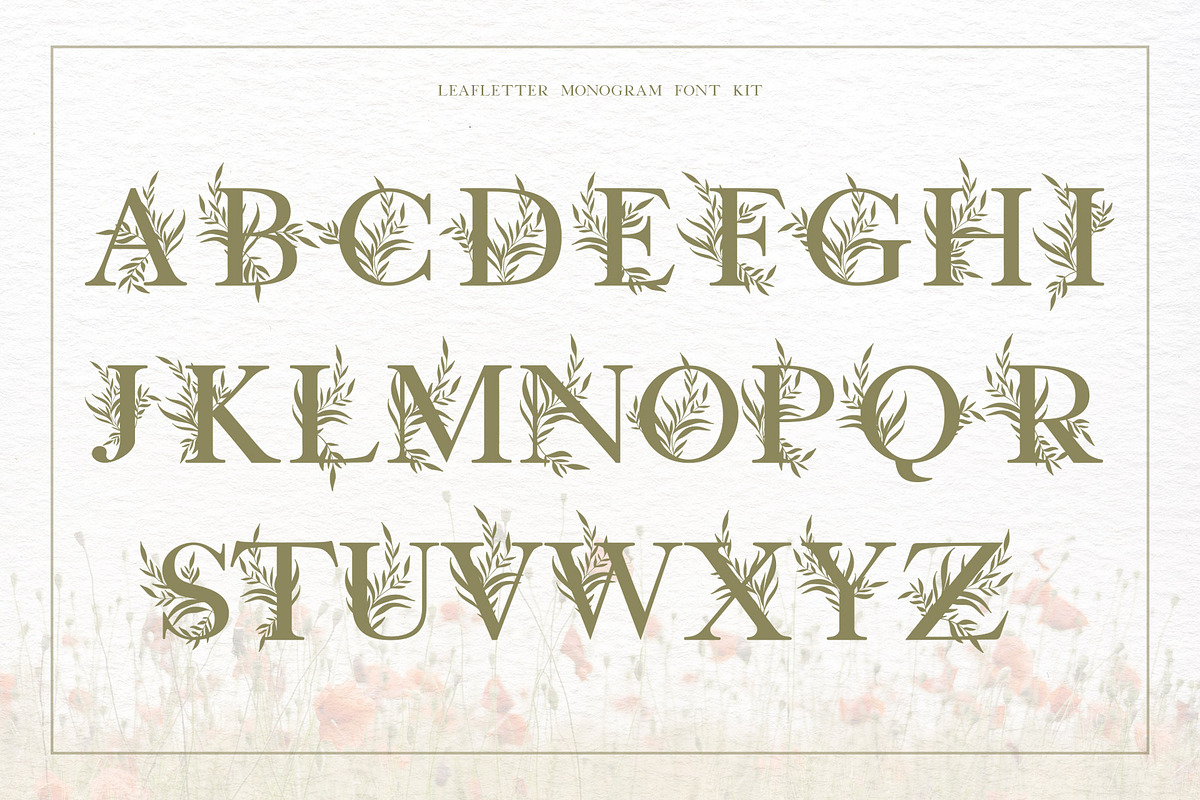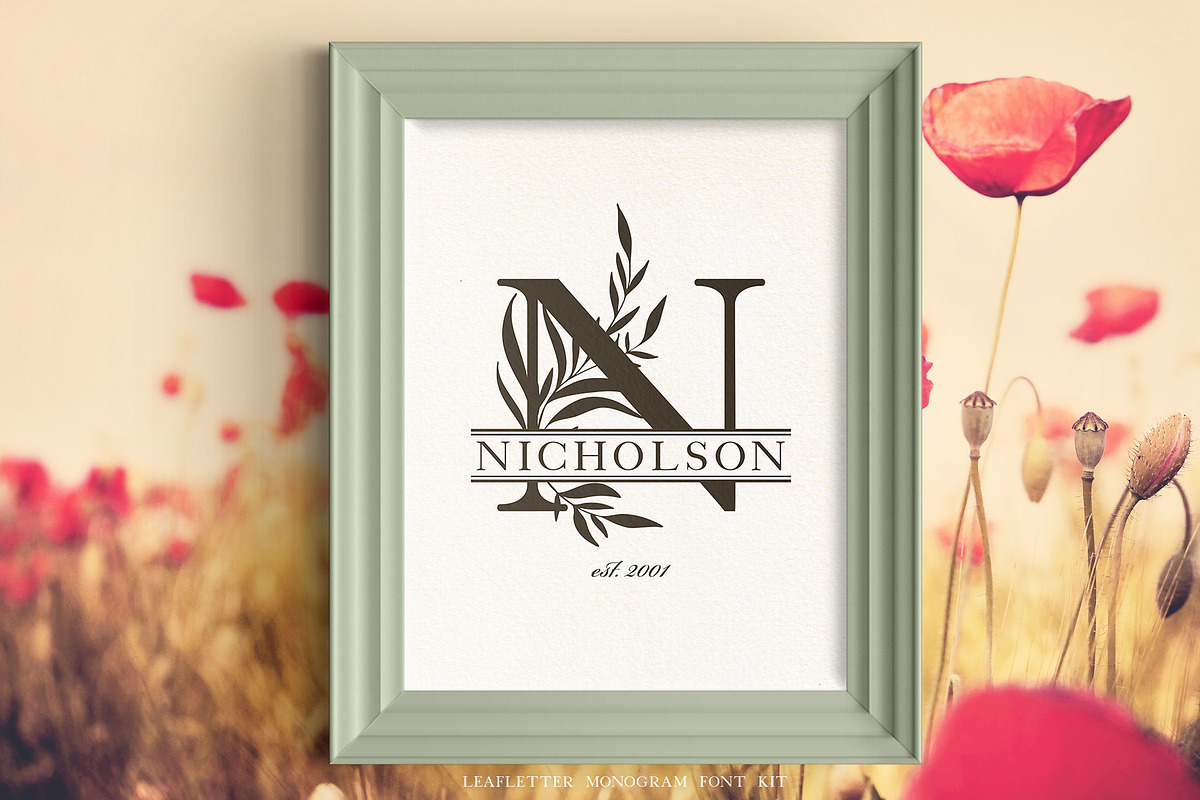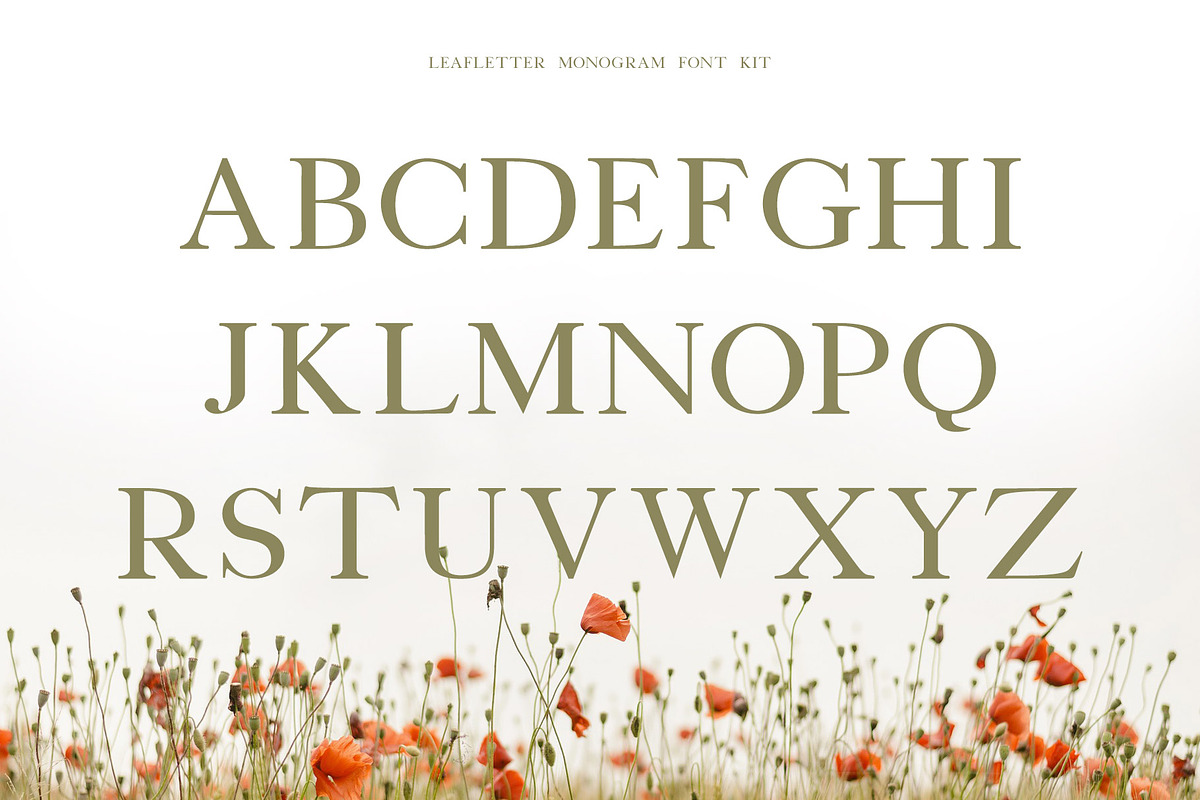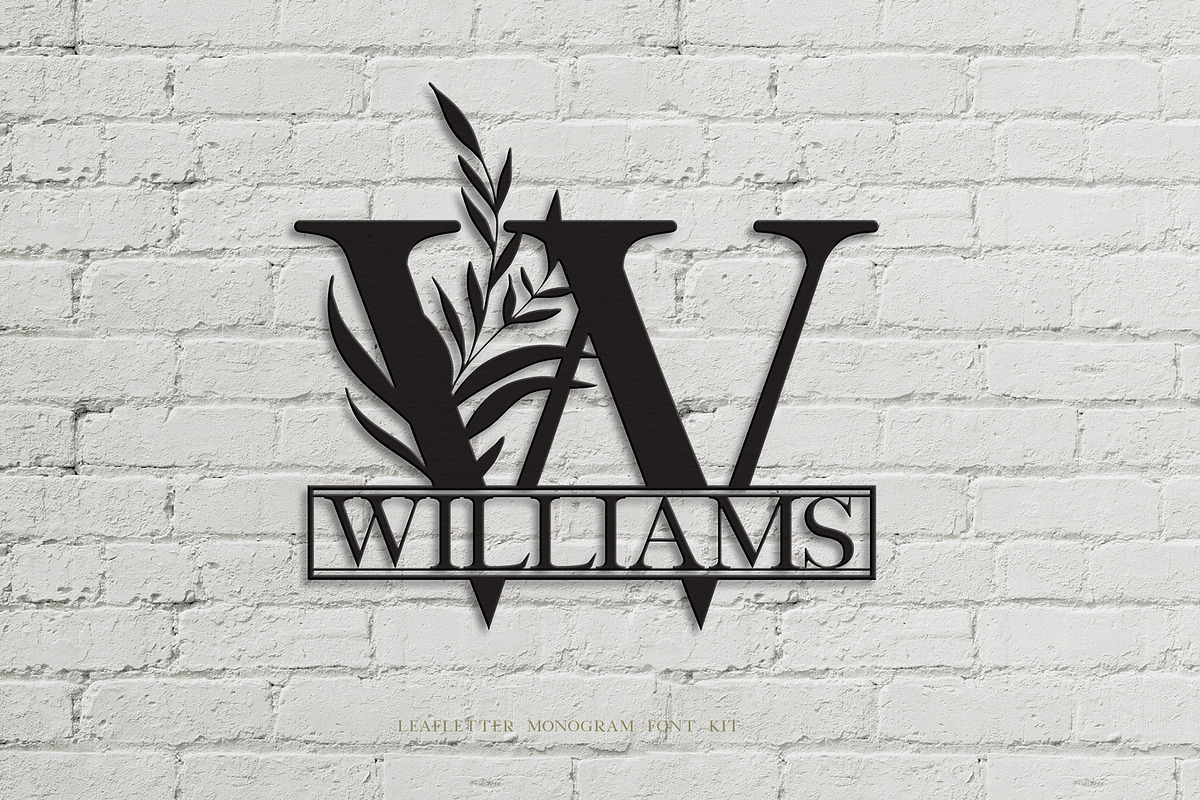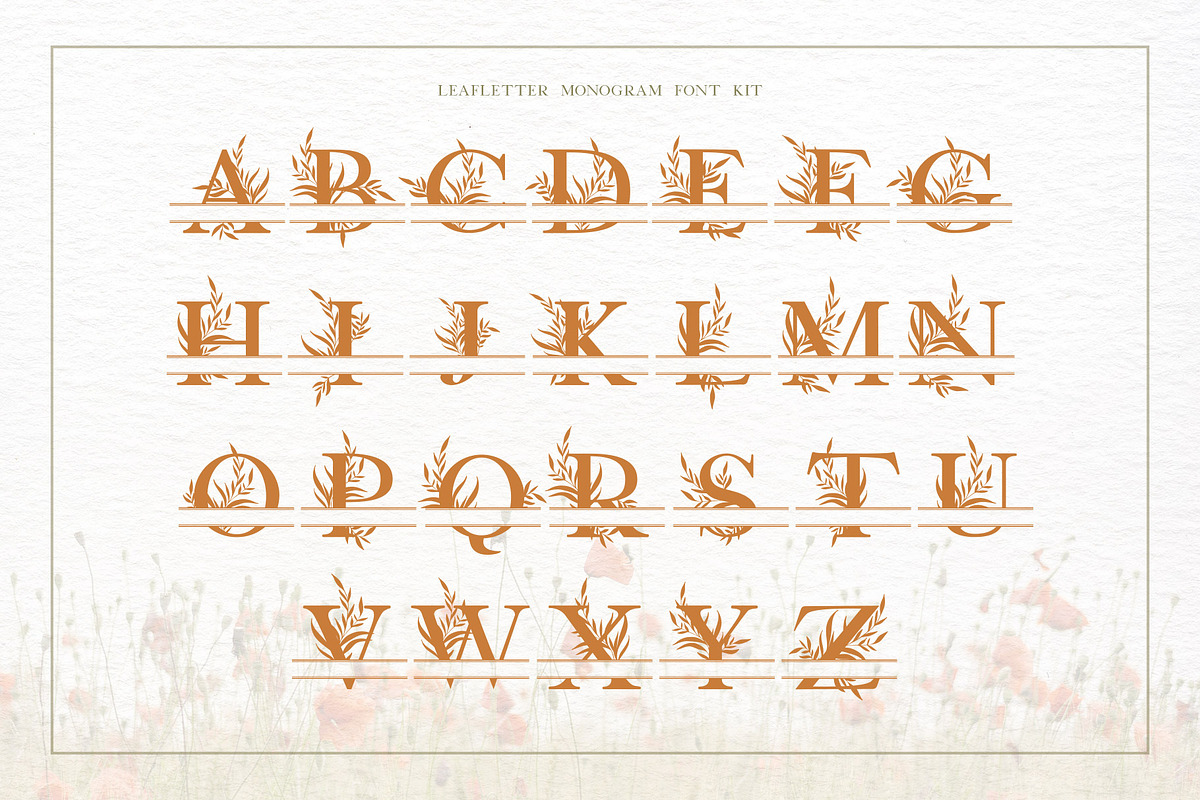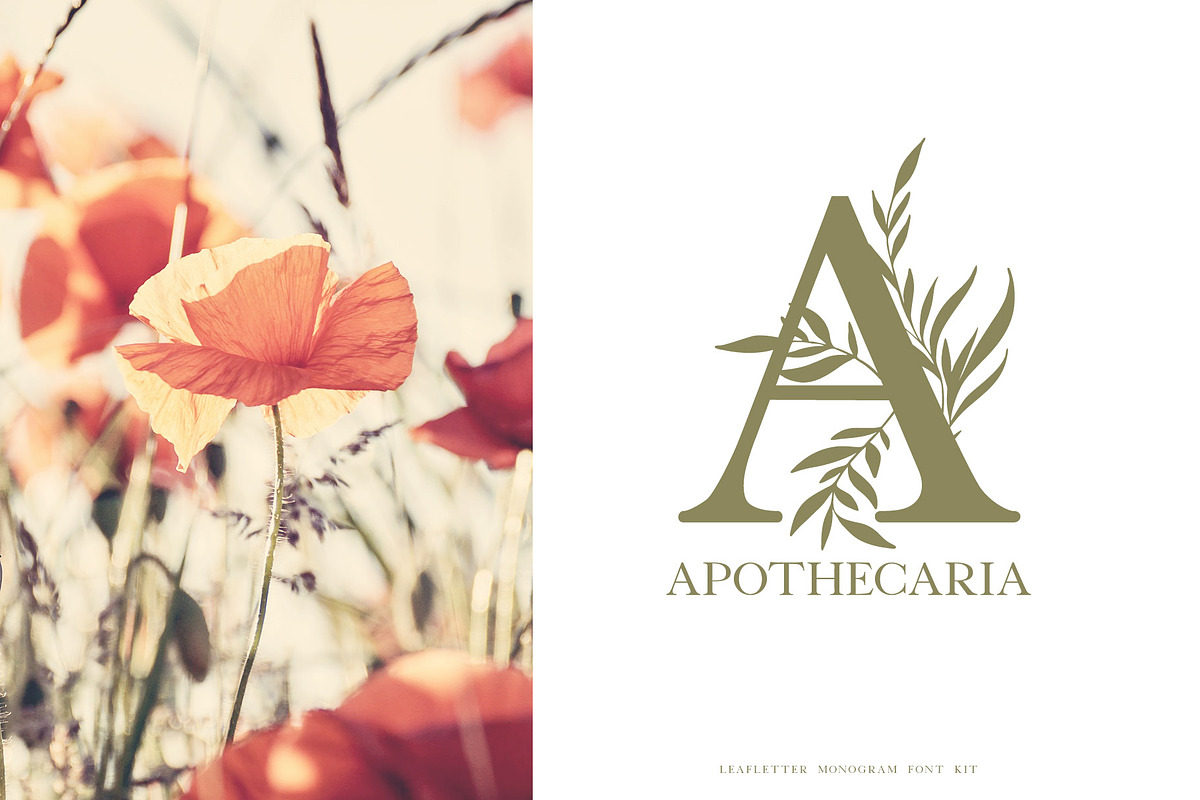
Leafletter Monogram Font Kit
The Leafletter Monogram Font Kit is a set of 3 fonts that are hand illustrated with lush leaves for a botanical effect. A standard serif font, leaf embellished version and a split monogram font are included. Wonderful for logos, wall art, wedding invitations, stationery and more.
All three fonts only include A-Z. There are no lowercase, punctuation, or symbols as this kit was designed as a monogram display set. Also included are EPS and SVG versions of the embellished letters, split monograms and separate leaf graphics (CS3+).
- Leafletter Regular
- Leafletter Embellished Regular
- Leafletter Split Monogram Regular